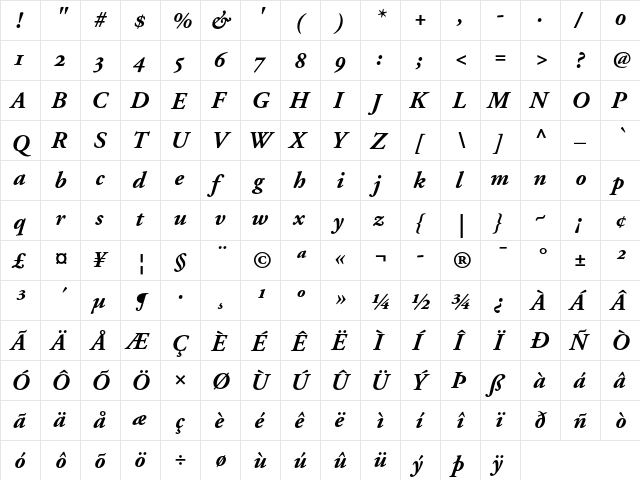
Adobe Garamond Bold Italic OsF Font Preview
Design Context for Adobe Garamond Typeface
Adobe Garamond takes a measured approach to typography — its balanced proportions and neutral character make it a reliable workhorse for both digital and print work. Its italic angle brings a sense of urgency and motion to the letterforms. The heavy weight commands attention and anchors typographic hierarchies.
Pro Tip: Use Adobe Garamond for emphasis, pull quotes, and subheadings where its slanted energy can add rhythm to the layout.